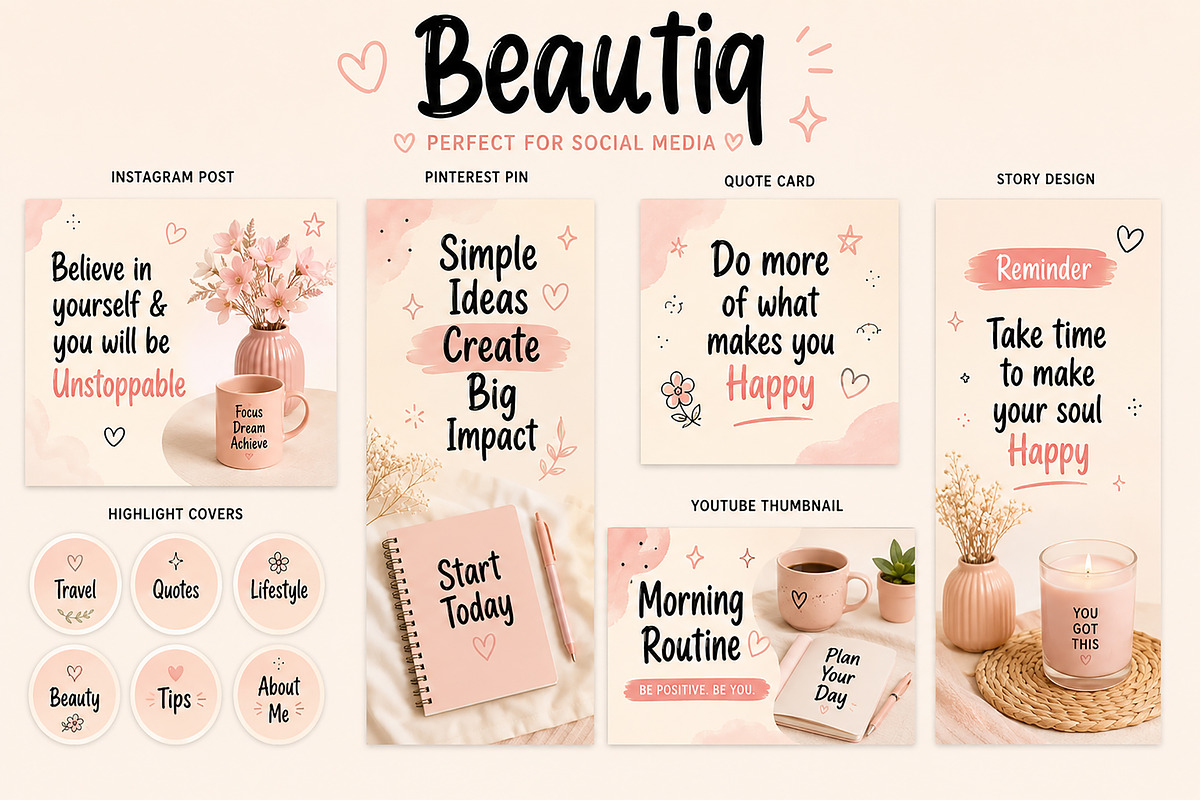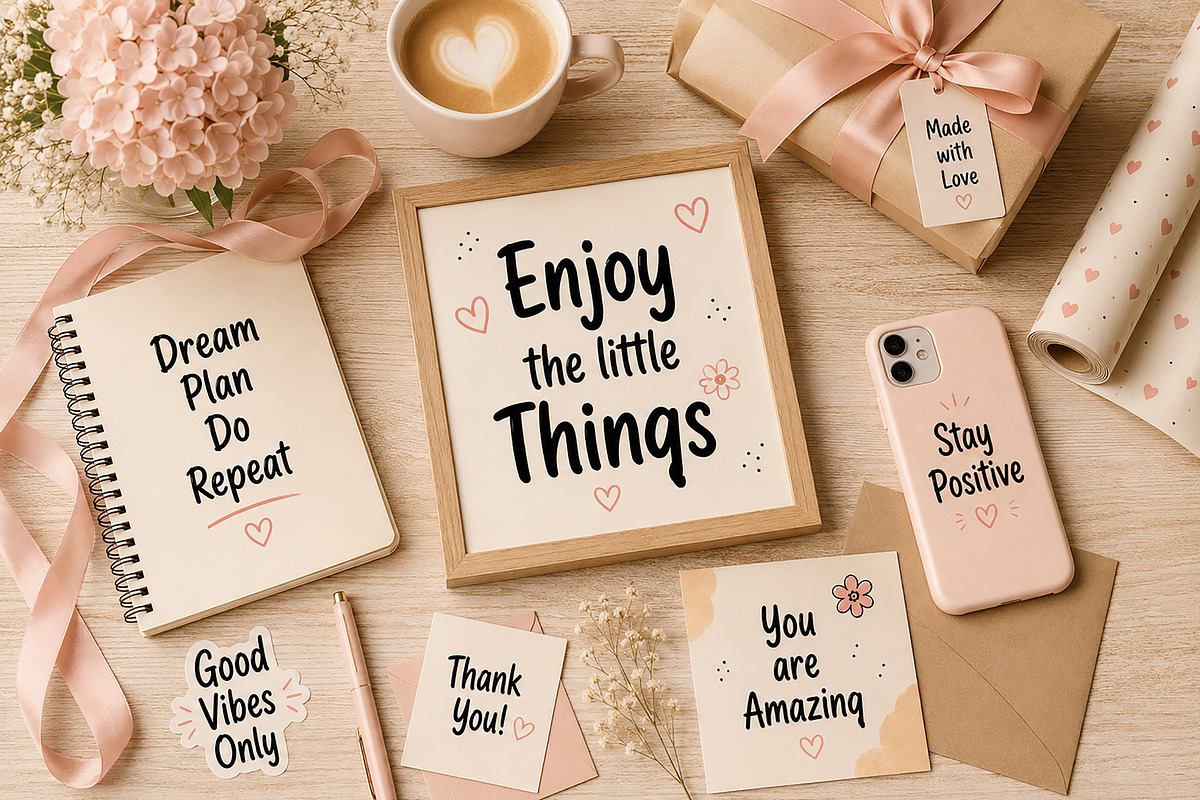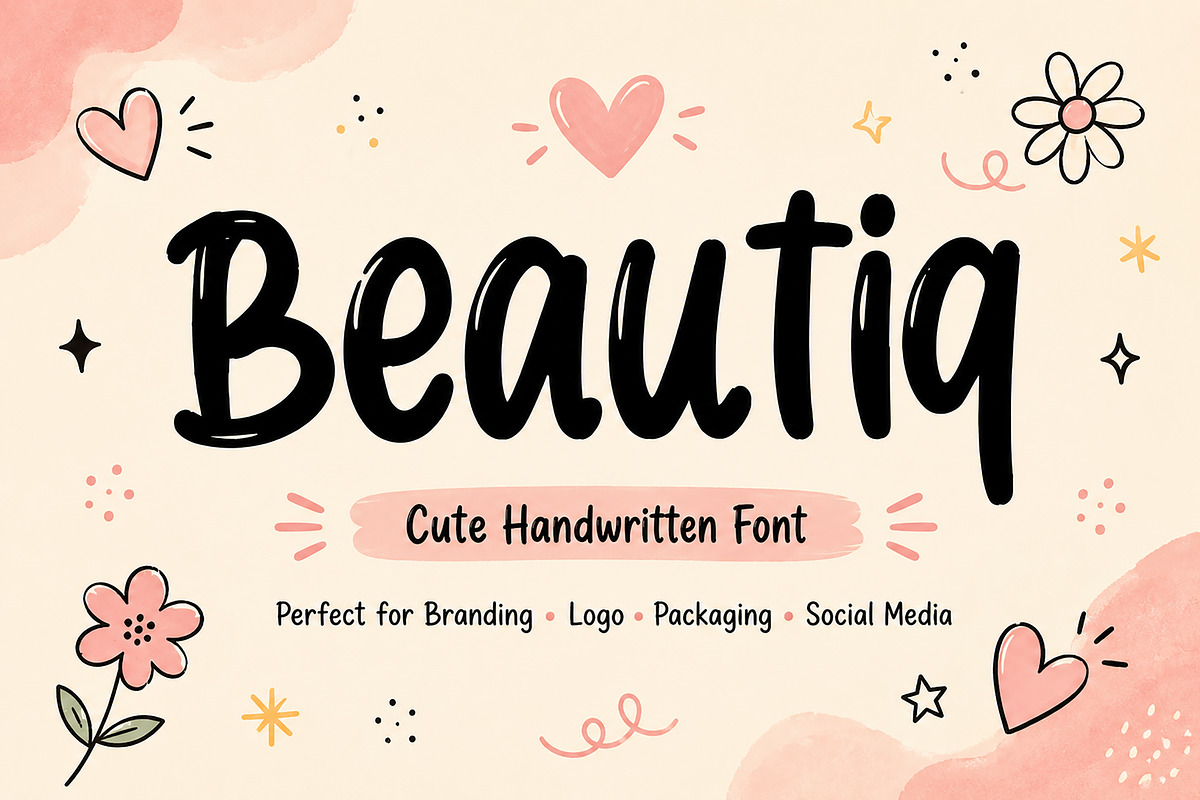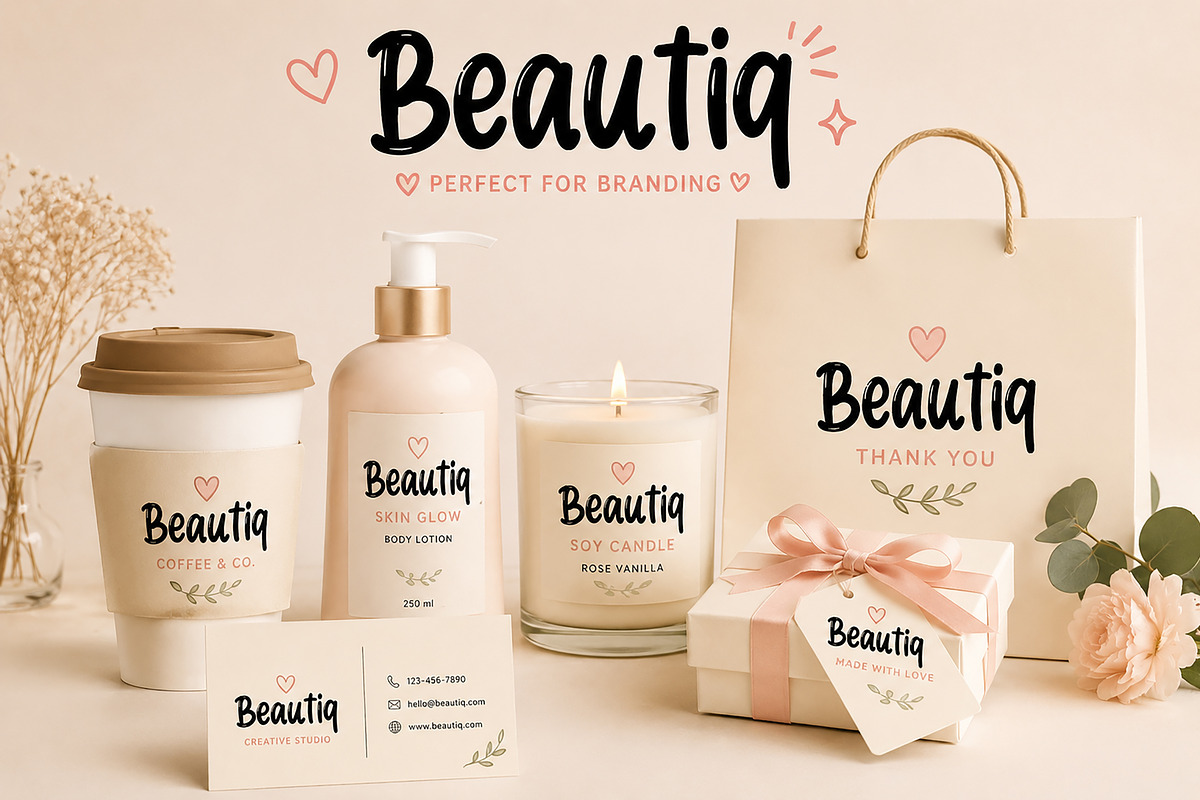
Beautiq
Beauty – Cute Handwritten Font
Introducing Beauty, a charming and playful handwritten font designed to bring warmth, personality, and creativity to every project. With its bold, smooth strokes and natural handwritten feel, Beauty delivers a friendly, approachable style that's perfect for modern branding and creative design.
Whether you're designing logos, product packaging, social media graphics, greeting cards, stickers, invitations, or children's products, Beauty adds a delightful handcrafted touch that instantly captures attention. Its clean letterforms and easy readability make it suitable for both digital and print applications.
From small businesses and crafters to professional designers, Beauty is the perfect choice for creating memorable designs with a fun, cheerful, and authentic handwritten look.
Branding
Instagram Posts
YouTube Thumbnails
Greeting Cards
Invitations
Wedding Stationery
Stickers
Labels
Quotes
Posters
T-Shirts
Mugs
Tote Bags
Children's Books
Scrapbooking
DIY Crafts
Printable Designs
Blog Graphics
Website Headers
Uppercase Letters
Lowercase Letters
Bring your creative ideas to life with Beauty—a cute handwritten font that makes every design feel warm, joyful, and full of personality.